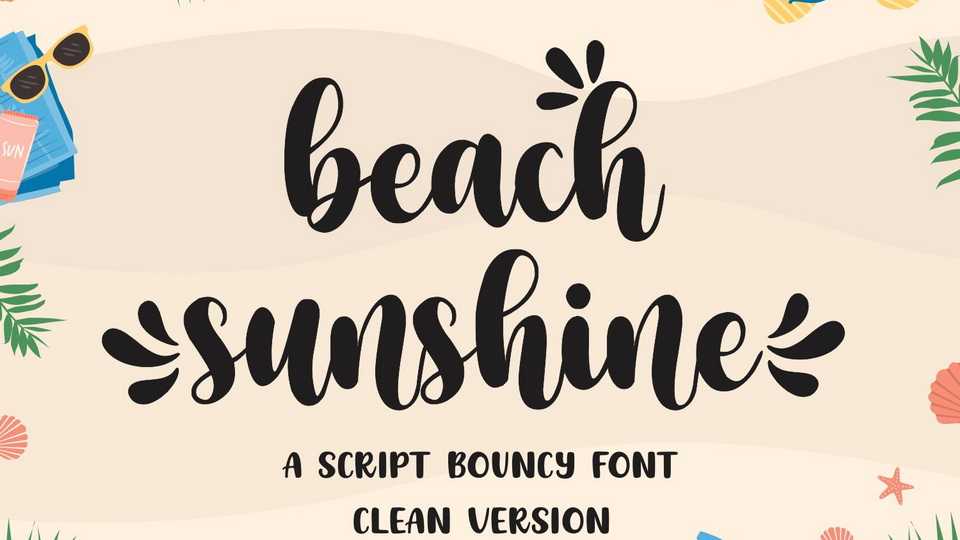
Download Beach Sunshine font, a fresh and sweet handwritten typeface. A little bit quirky, Beach Sunshine font looks incredibly adept on a wide variety of contexts like crafting, branding, social media and more.
Designer: Mozarella